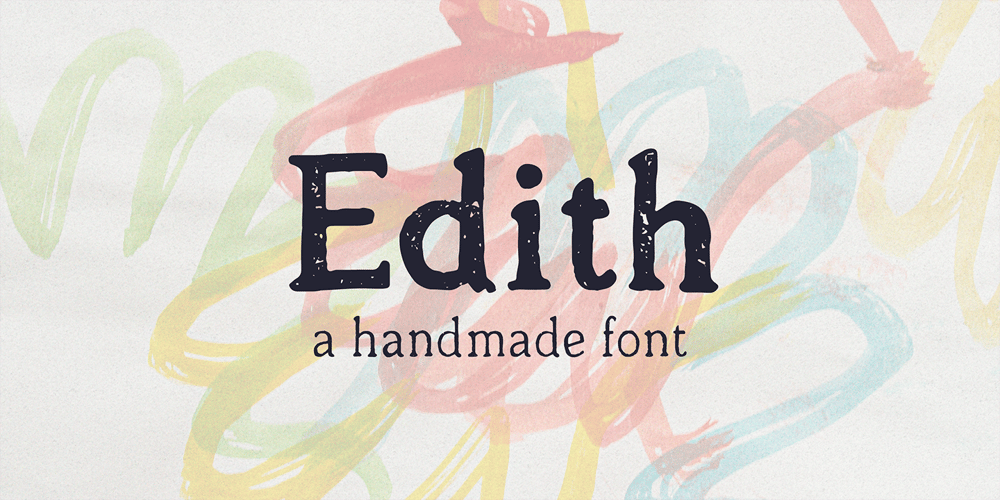
Edith
Edith font
Edith Font Family was designed by Dominik Krotscheck and published by Dominik Krotscheck. Edith contains 3 styles and family package options. Edith is a handmade serif typeface that can be used for long texts. To make it even better suitable, it is equipped with all the major features you’d expect from a traditional text-font, such as case sensitive forms, old style figures (lining figures are accessible via an opentype feature), fractions and good kerning. To keep up the handwritten appearance, two versions of each letter (A-Z & a-z with diacritics) and number are available and substituted automatically if the same ones meet. Edith is also nice to look at in larger sizes and therefore a great fit for any packaging, advertisement or headline.Edith is for you, if you plan on doing childish things, DIY things, traditional things, illustrated things, nautical things, grungy things or any handmade related things.